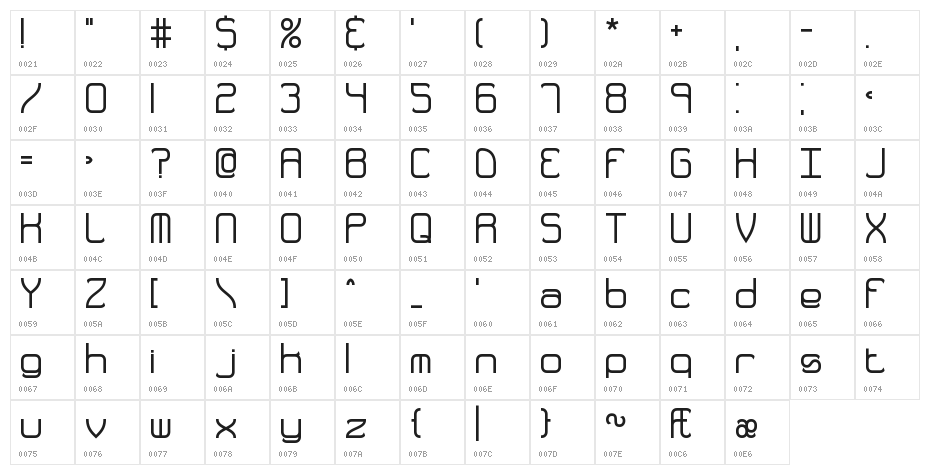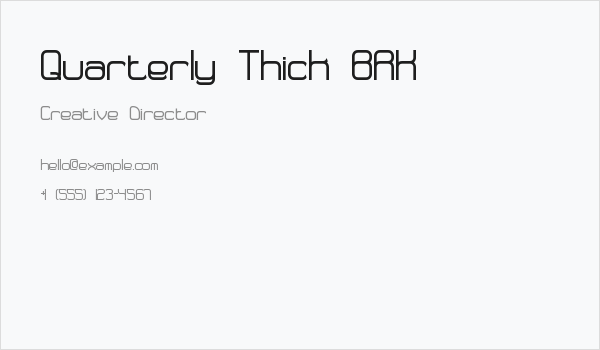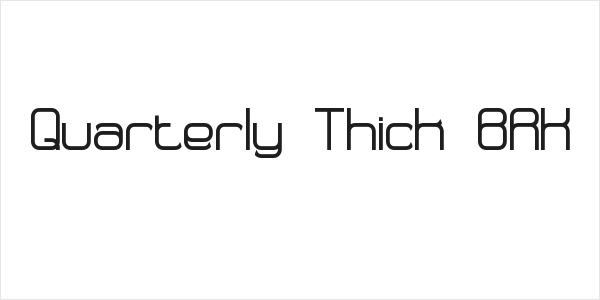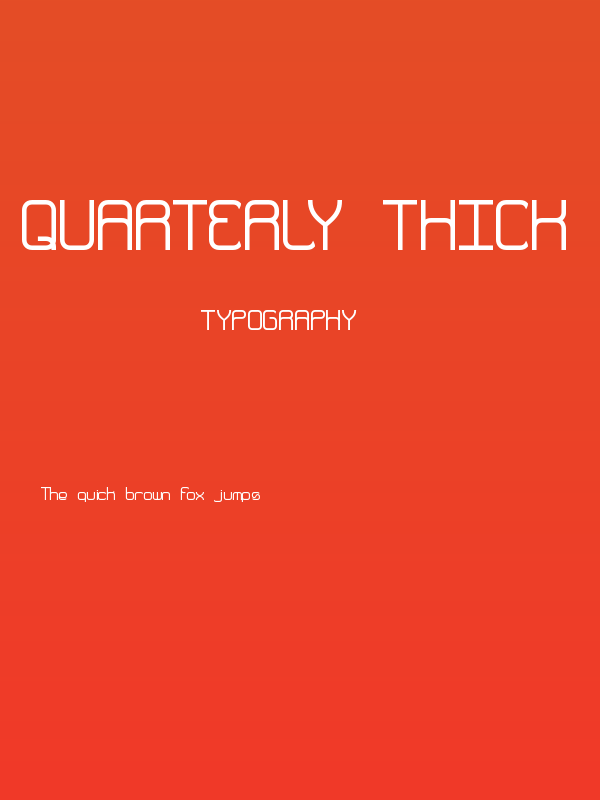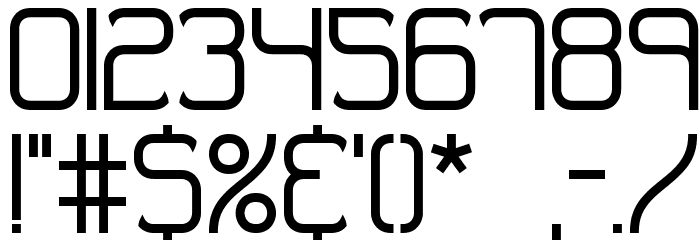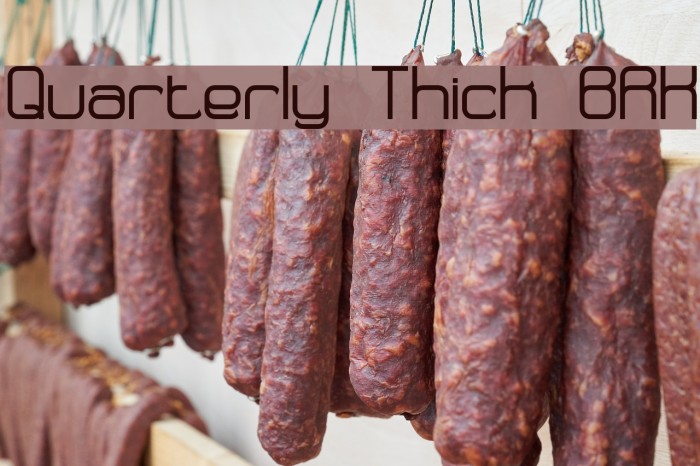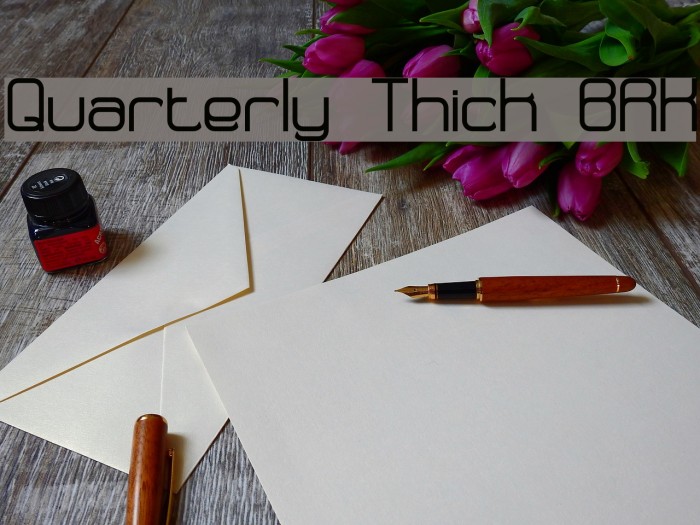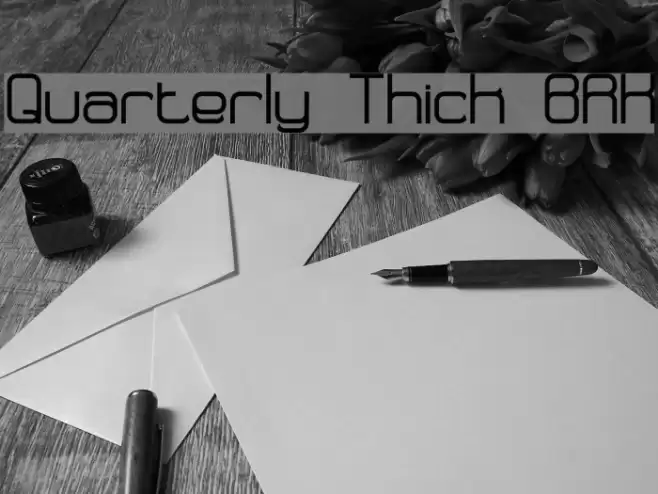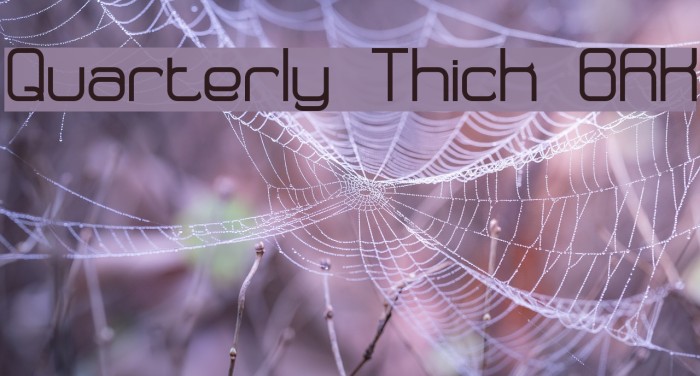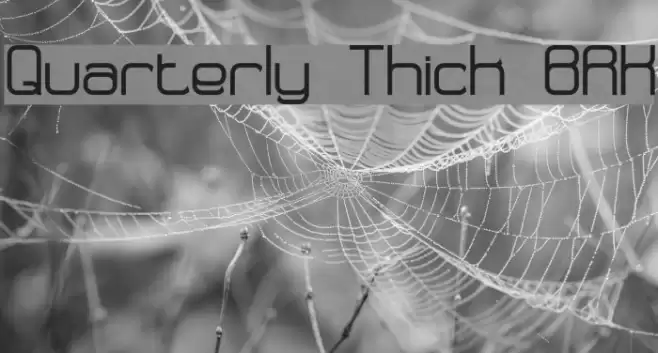
Quarterly Thick BRK Font
| Cas d'utilisation | Headlines, Logos, Digital Interfaces |
| Projets proposés | Ideal for tech branding, modern web design, digital interfaces, and minimalist posters. |